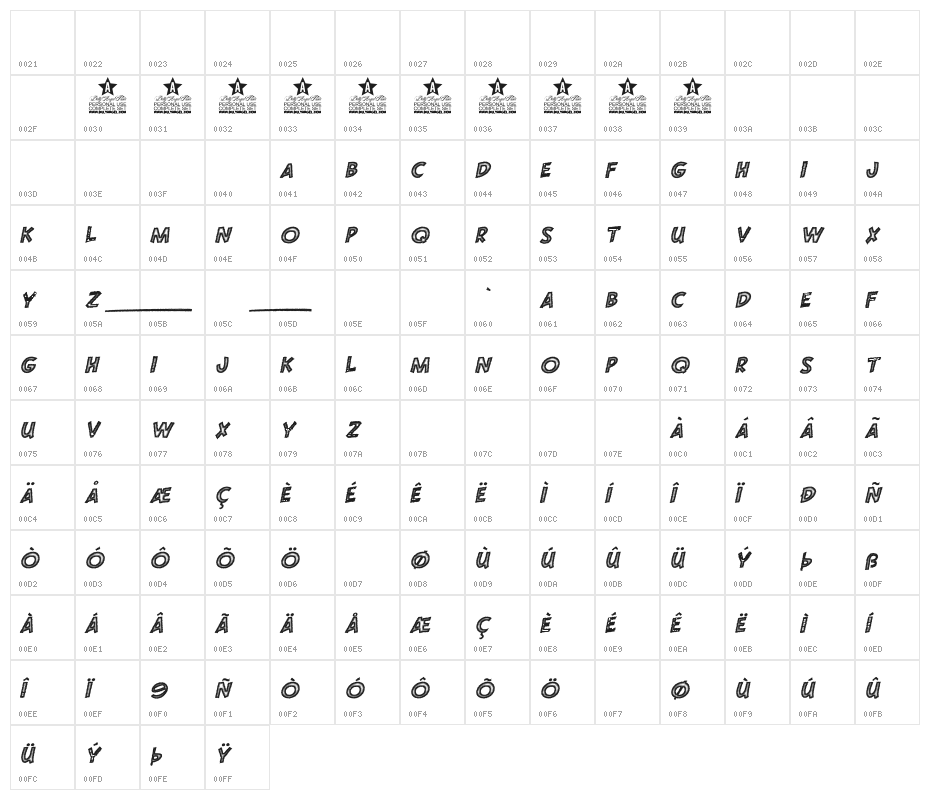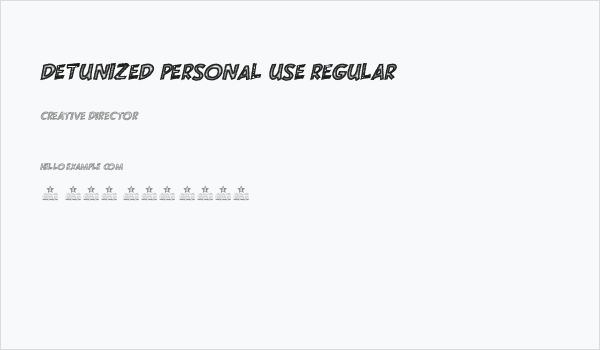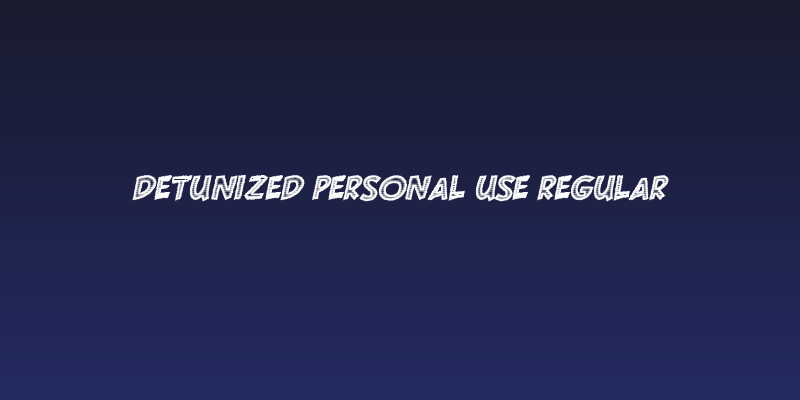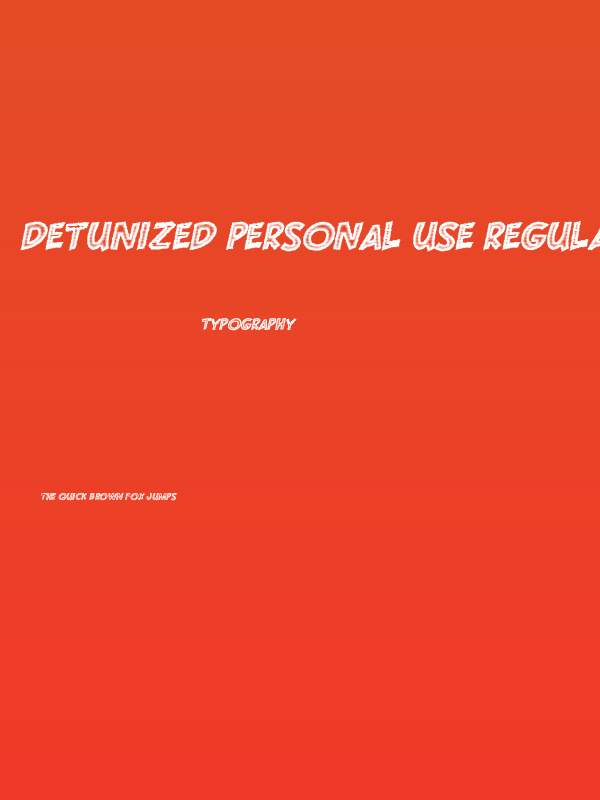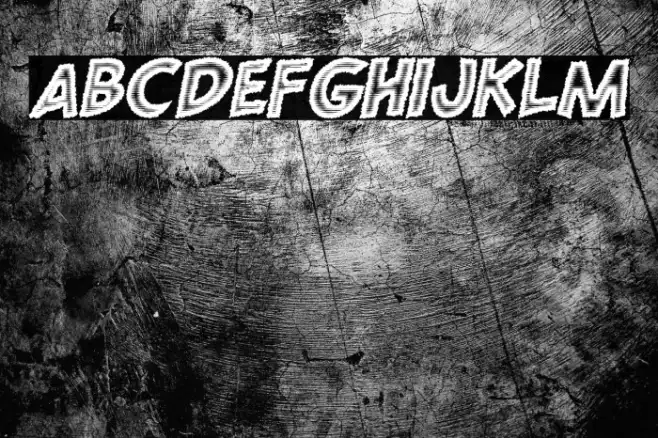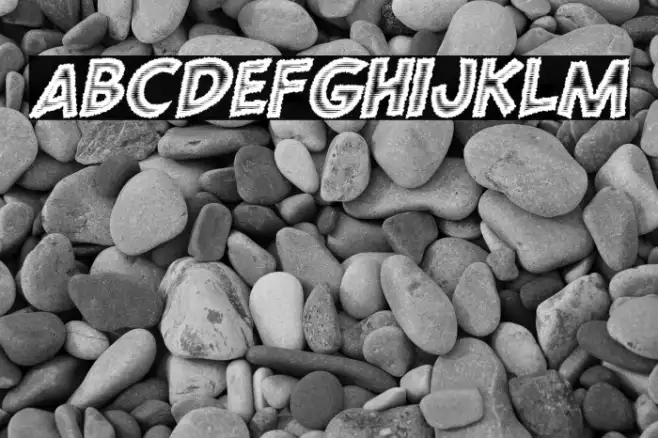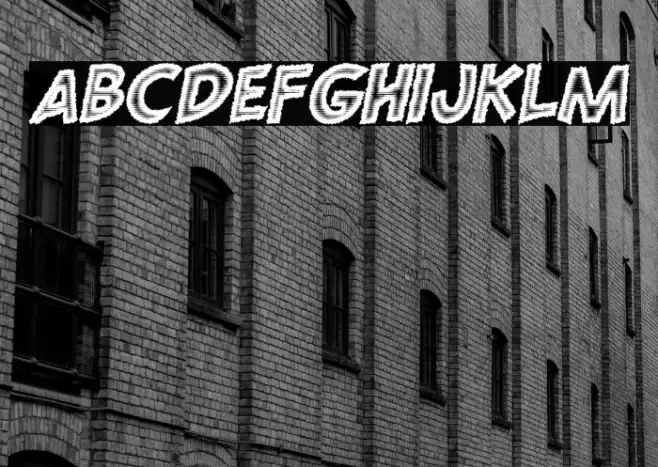
DETUNIZED PERSONAL USE Regular Font
DETUNIZED PERSONAL USE Regular Description
This font features a bold and dynamic style with a textured, sketch-like appearance. The letters have a playful and energetic feel, characterized by thick strokes and a slightly irregular outline that gives a hand-drawn effect. The uppercase letters are prominent and eye-catching, making them suitable for attention-grabbing designs. The overall aesthetic is reminiscent of comic book lettering, with a sense of movement and vibrancy. This font is ideal for projects that require a fun and informal touch, such as posters, flyers, or children's book covers.
| Overall Style | Playful, Comic |
| Proposed Projects | Ideal for posters, comic books, children's books, and playful branding. |